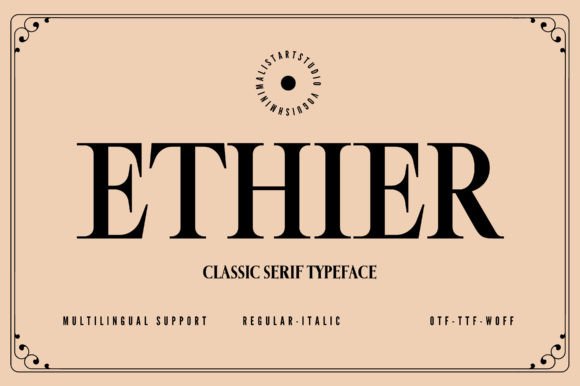
Introducing Ethier: The Perfect Serif Font for Elegant Designs
In the world of typography, a font can make or break a design. When it comes to creating a sophisticated and elegant aesthetic, the right font is essential. This is where Ethier comes in – a serif font that embodies chic, elegant, and minimalist style. With its clean lines and timeless appeal, Ethier is the ideal choice for any project that requires a touch of refinement.
The Simplicity and Versatility of Ethier
At first glance, Ethier may seem like a simple font. However, don’t let its simplicity fool you – Ethier is a font of many talents. With over 520 glyphs, it boasts an extensive character set that can meet all of your design needs. Whether you’re crafting a logo, designing a brochure, or creating a website, Ethier has the versatility to adapt to any project.
Example of Ethier Font in use
Multi-Lingual Support for Global Designs
In today’s globalized world, designs often need to cater to a diverse audience. This is where Ethier truly shines. With multi-lingual support, Ethier can handle a wide range of languages, making it a great choice for global brands, multilingual websites, or any project that requires multi-language support. Whether you’re targeting a specific region or going global, Ethier has got you covered.
The Art of Attention to Detail
What really sets Ethier apart is its attention to detail. Each glyph has been carefully crafted to ensure that it flows seamlessly with the rest of the font, resulting in a harmonious and visually pleasing design. The result is a font that exudes a sense of refinement and style. This attention to detail is what makes Ethier stand out from other fonts and makes it a cut above the rest.
The Benefits of Using Ethier
So why choose Ethier for your design needs? Here are just a few benefits of using this exceptional font:
- Timeless Elegance: Ethier’s classic design ensures that your project will never go out of style.
- Extensive Glyph Library: With over 520 glyphs, Ethier has the versatility to meet all of your design needs.
- Multi-Lingual Support: Ethier can handle a wide range of languages, making it perfect for global designs.
- Attention to Detail: Each glyph has been carefully crafted to ensure a harmonious and visually pleasing design.
Using Ethier in Your Design Projects
So how can you start using Ethier in your design projects? Here are a few tips:
- Pair Ethier with Other Fonts: Experiment with pairing Ethier with other fonts to create a unique and visually appealing design.
- Use Ethier for Headings and Body Text: Ethier’s clarity and legibility make it perfect for both headings and body text.
- Take Advantage of Multi-Lingual Support: If you’re designing for a global audience, be sure to take advantage of Ethier’s multi-lingual support.
In conclusion, Ethier is a serif font that embodies elegance, sophistication, and versatility. With its clean lines, extensive glyph library, and multi-lingual support, Ethier is the perfect choice for any project that requires a touch of refinement. Whether you’re a designer, a brand, or a business, Ethier is sure to become your go-to font for all of your design needs.